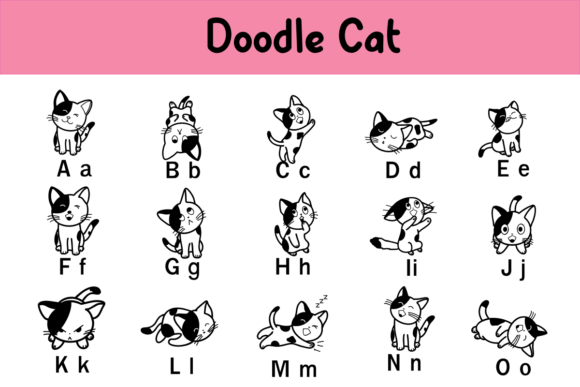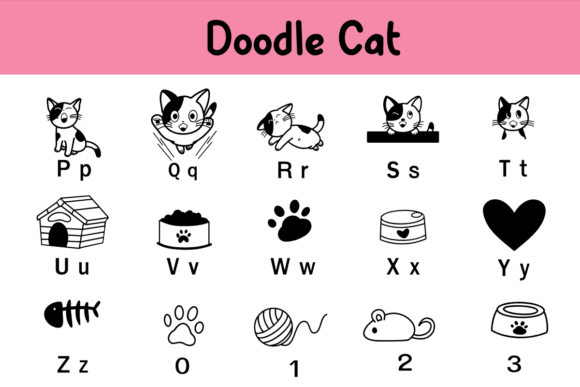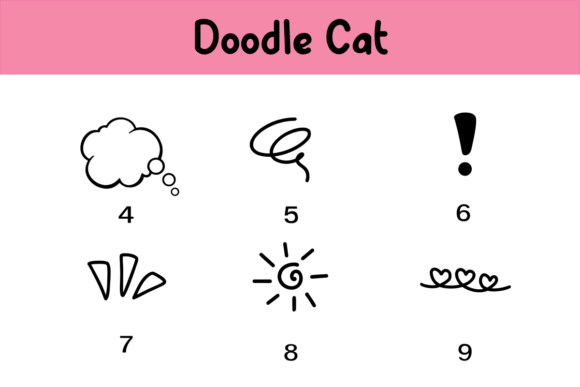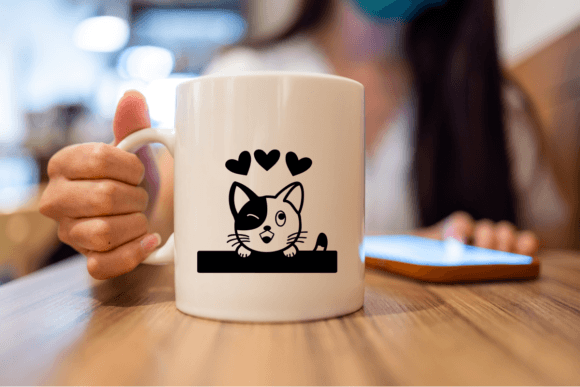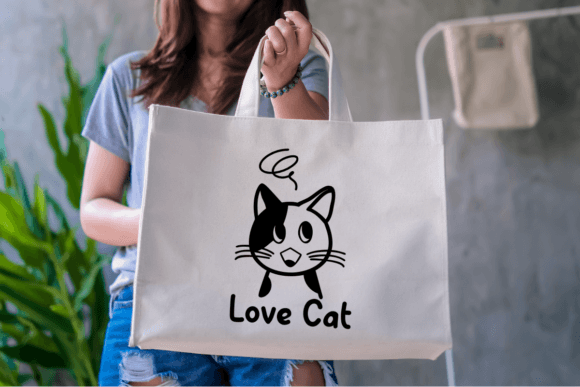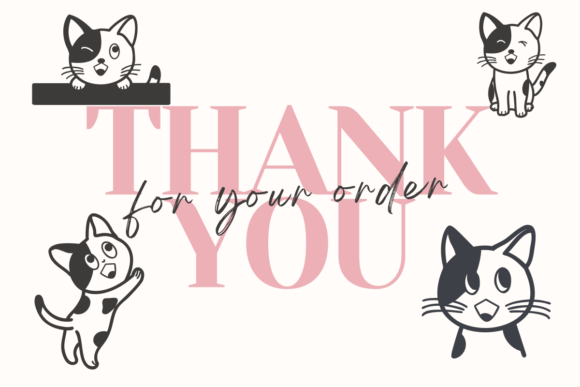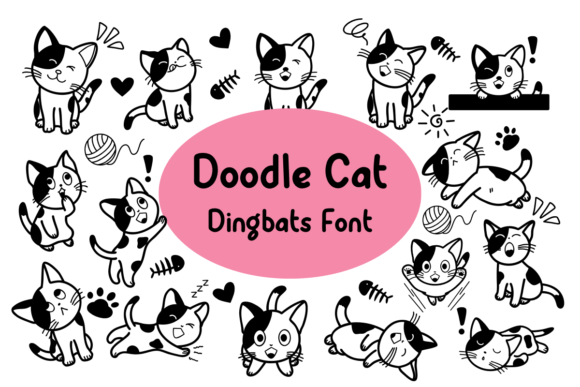
Doodle Cat Font: The Purrfect Addition to Your Creative Projects
Are you a designer, crafter, or DIY enthusiast looking for a unique and playful font to add a touch of personality to your creative projects? Look no further than the Doodle Cat Font! This charming dingbats font features a feline sketched theme style that’s sure to delight cat lovers and crafty enthusiasts alike.
What is Doodle Cat Font?
Doodle Cat Font is a specially designed dingbats font that showcases adorable cat illustrations in a variety of playful poses and expressions. The font is perfect for adding a whimsical touch to your creative projects, from wedding invitations and DIY crafts to decorations, logos, and more.
Key Features of Doodle Cat Font
- Feline-themed illustrations: The Doodle Cat Font features a range of cute and playful cat illustrations, each carefully designed to bring a smile to your face.
- Dingbats font style: This font is a classic dingbats font, making it easy to use and incorporate into your designs.
- Scalable and versatile: The Doodle Cat Font is highly scalable, allowing you to use it for a wide range of projects, from small crafts to large-scale designs.
- Easily editable: As a digital font, the Doodle Cat Font is easy to edit and customize to suit your needs.
Creative Ways to Use Doodle Cat Font
The Doodle Cat Font is an incredibly versatile font that can be used in a wide range of creative projects. Here are some ideas to get you started:
- Wedding invitations: Add a touch of whimsy and romance to your wedding invitations with the Doodle Cat Font.
- DIY crafts: Use the Doodle Cat Font to create personalized crafts, such as cat-themed cards, gift tags, and decorations.
- Logos and branding: The Doodle Cat Font is perfect for creating cute and playful logos for pet-related businesses or products.
- Decorations: Use the Doodle Cat Font to create custom decorations, such as garlands, banners, and wall art.
- Social media graphics: Add a touch of personality to your social media graphics with the Doodle Cat Font.
Why Choose Doodle Cat Font?
With so many fonts available, why choose the Doodle Cat Font? Here are just a few reasons:
- Unique and playful: The Doodle Cat Font offers a unique and playful take on traditional fonts, making it perfect for designers and crafters looking to add some personality to their projects.
- High-quality illustrations: The Doodle Cat Font features high-quality illustrations that are sure to delight cat lovers and crafty enthusiasts alike.